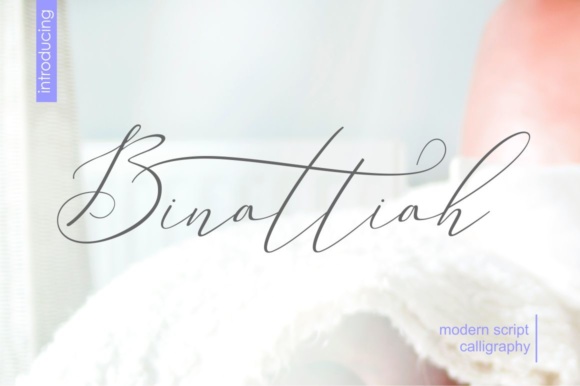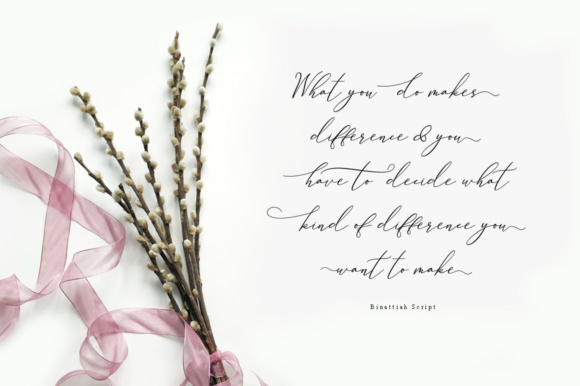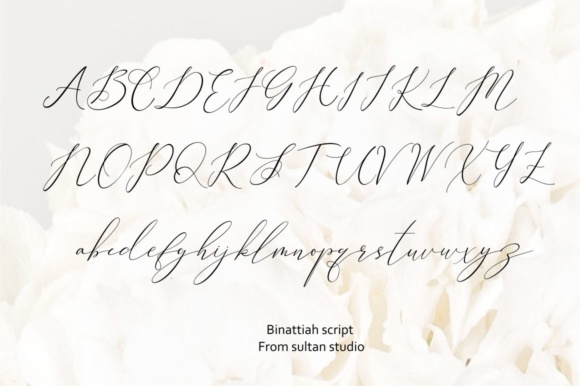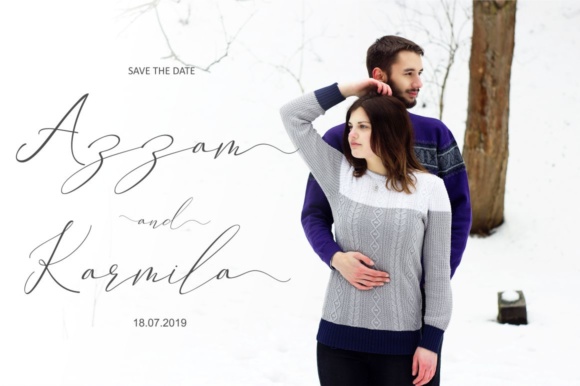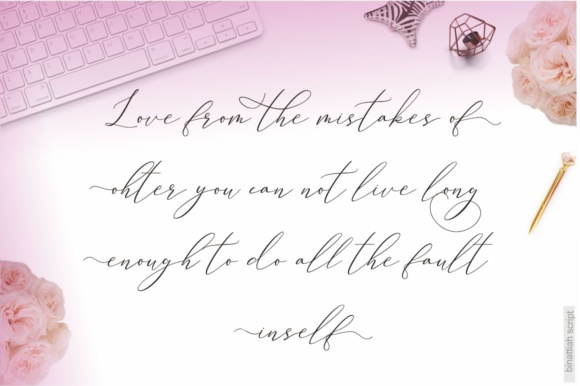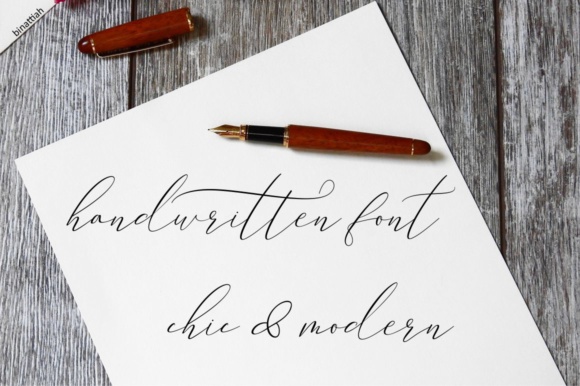
Binattiah Font
Binattiah Script has a romantic and modern calligraphy, ready to give your design a fresh and fabulous Style.
Perfect for weddings, branding and romantic invitations and also suitable for various purposes such as digital lettering, headings, logos, wedding invitations, t-shirts, letterheads, signage’s and much more!